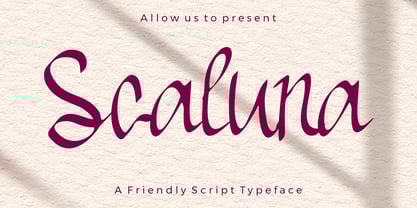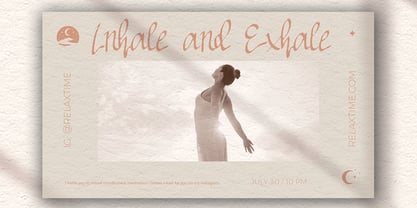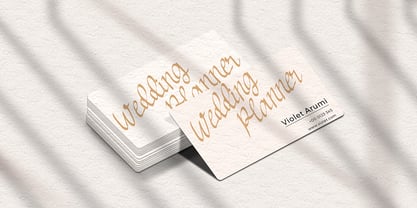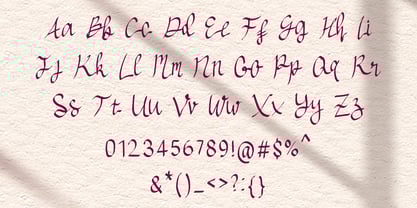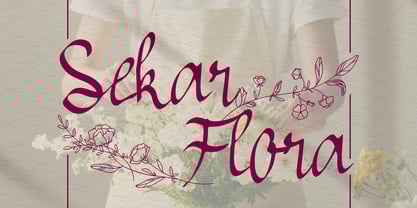
Schaluna
by Sipanji21
The Schaluna Font Family was designed by Sipanji and published by Sipanji21. Schaluna contains 1 styles. More about this family
Scaluna is a warm and elegant script font designed to bring a personal and inviting feel to your creative projects. With smooth curves and flowing letterforms, Scaluna strikes the perfect balance between casual charm and refined sophistication — making it ideal for both digital and print applications.
Crafted with attention to detail, each letter is drawn to ensure optimal legibility while maintaining the fluidity of handwritten strokes. This font is perfect for branding, packaging, website headers, magazine titles, wedding invitations, and more. Its graceful movement makes it versatile enough for both modern and vintage-inspired aesthetics.